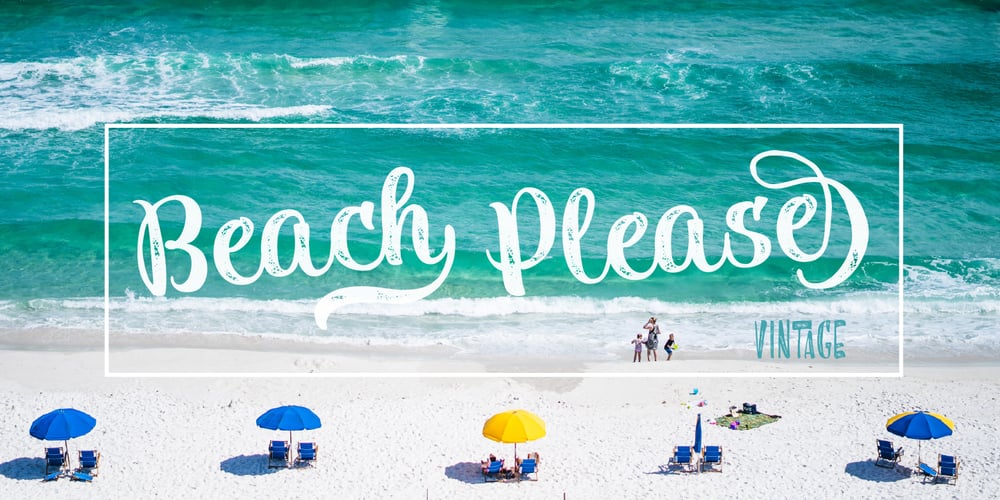
Beach Please Vintage
Beach Please Vintage font
Beach Please Vintage Font Family was designed by Giuseppe Salerno, Paco González and published by Resistenza. Beach Please Vintage contains 6 styles and family package options. Introducing the latest addition to the Beach Please font family: Beach Please Vintage. While retaining the essence of its predecessor, Beach Please Vintage takes a nostalgic turn, invoking a vintage, aged effect that adds depth and texture to your designs. Like its sibling, Beach Please Vintage is a delightful suite of handwritten fonts, meticulously crafted with pointed brush strokes and watercolor inspiration.Beach Please Vintage offers six unique styles: Beach Please Regular and Slanted, Caps, Wide, Caps Slanted, and Wide Slanted. Each style brings its own distinctive flair to the table, catering to a wide range of design needs with its unique characteristics.At the heart of the collection lies Beach Please Vintage Regular Script, reminiscent of classic sign painting with its charming and laid-back brush strokes. Infused with a sense of nostalgia and warmth, this font adds a playful touch to any project, characterized by exaggerated curves and lively punctuation marks. Delve deeper, and you’ll uncover a treasure trove of alternates and swashes nestled within the OpenType features, offering endless creative possibilities.For those seeking a bold statement, Beach Please Vintage Caps and Wide are the perfect choice. With their reversed contrast on select letters, these fonts exude an unconventional charm that captivates attention and breathes new life into headlines. Whether you opt for the Caps or Wide version, you’re guaranteed a fresh and eye-catching typographic experience. And with an abundance of ligatures, your text gains an authentic handwritten feel, perfect for infusing character into your designs.When space is at a premium, Beach Please Vintage Wide steps in as the ideal solution. Designed to shine in smaller sizes, this font retains its distinctive charm while maintaining excellent legibility. Generous ligatures ensure smooth transitions between characters, resulting in seamless text flow and a natural handwritten appearance.Whether you’re crafting captivating headlines, designing intricate letterings, or adding a touch of vintage charm to your creations, Beach Please Vintage offers a versatile toolkit to bring your vision to life.More about Opentype Features: https://bit.ly/opentype-rsz